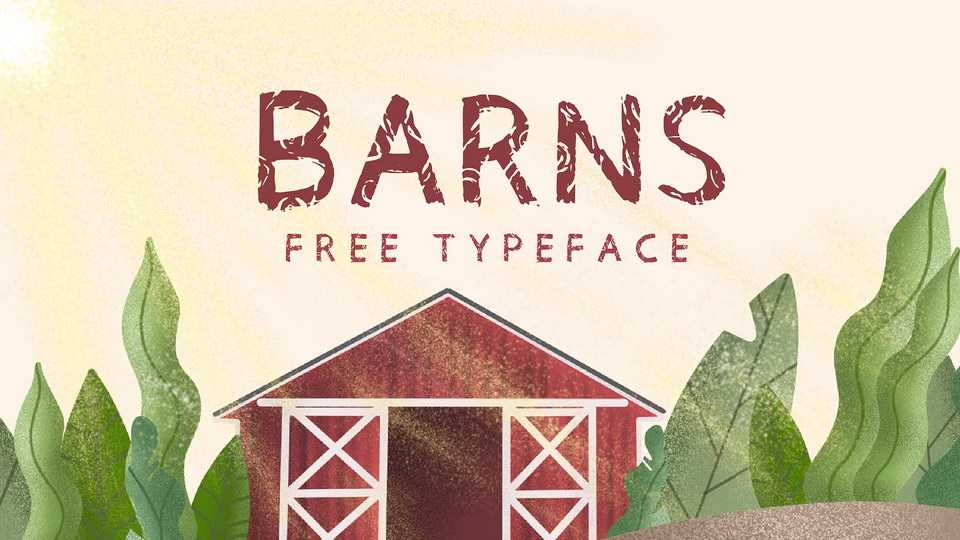
Download Barns font, a natural handwritten typeface with a rough texture. The font is perfect for crafts, notes, quotes, organic products, social media and more.